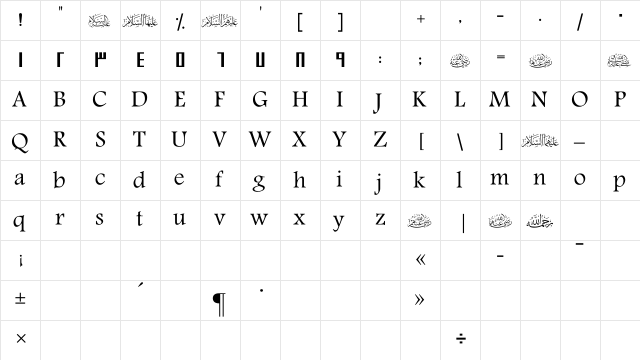
SC_REHAN REGULAR
Design Context for SC_REHAN Typeface
SC_REHAN takes a measured approach to typography — its balanced proportions and neutral character make it a reliable workhorse for both digital and print work.